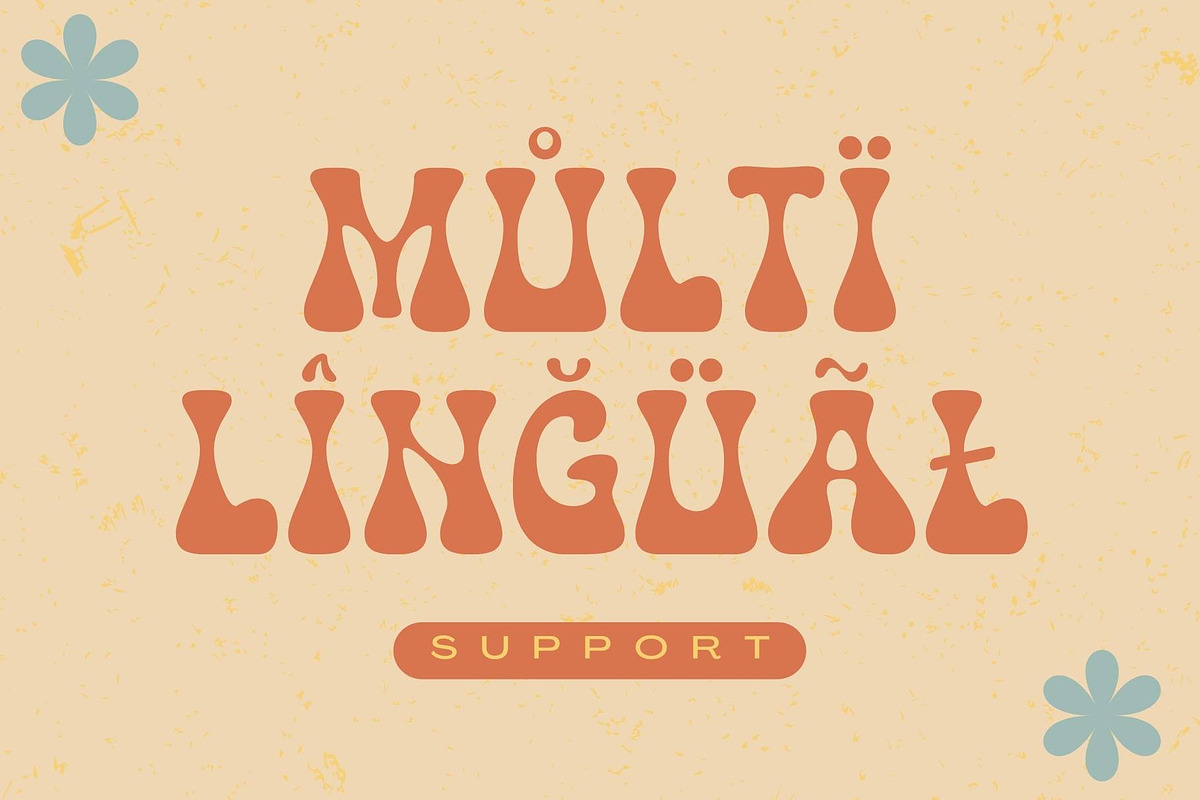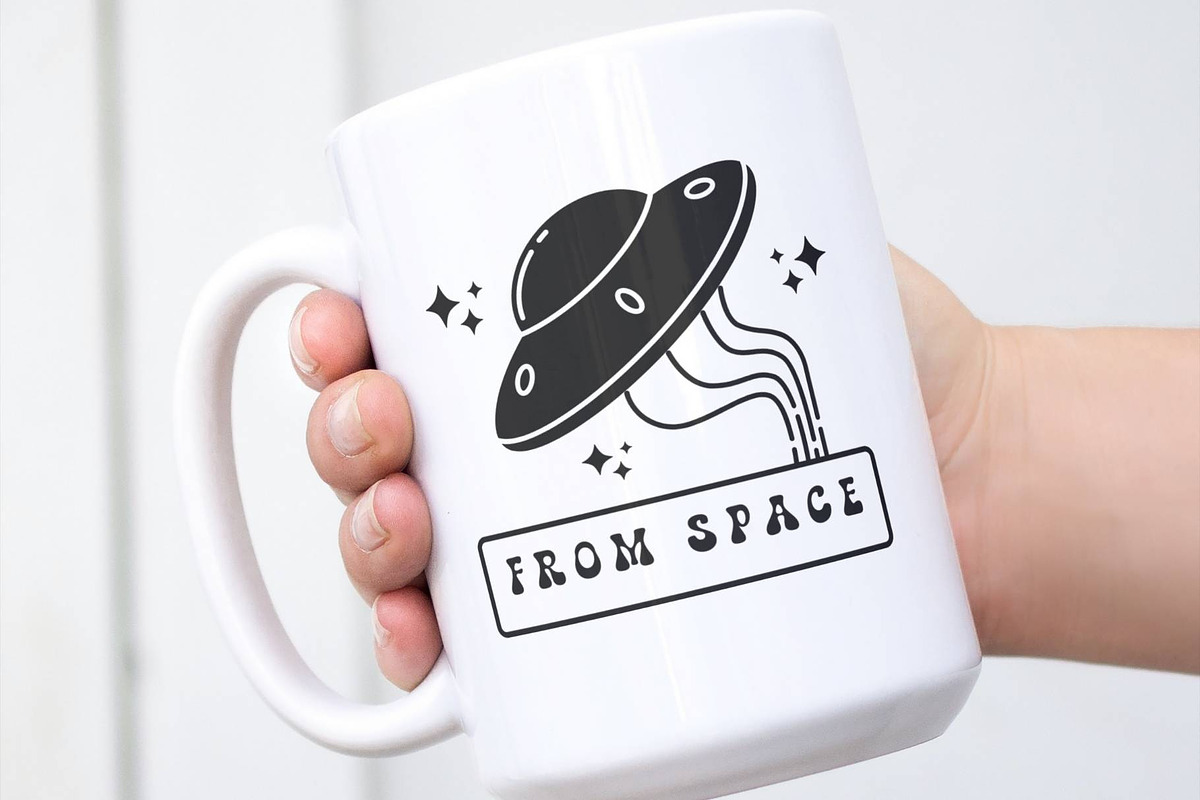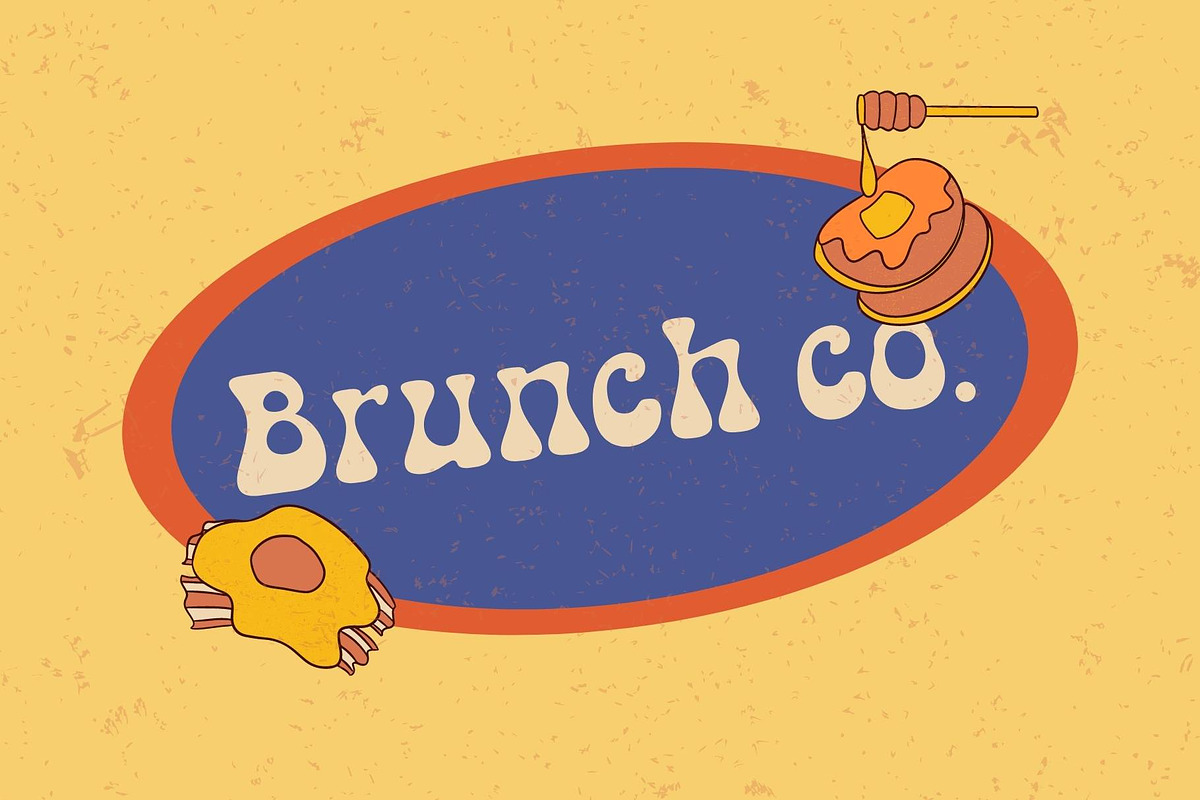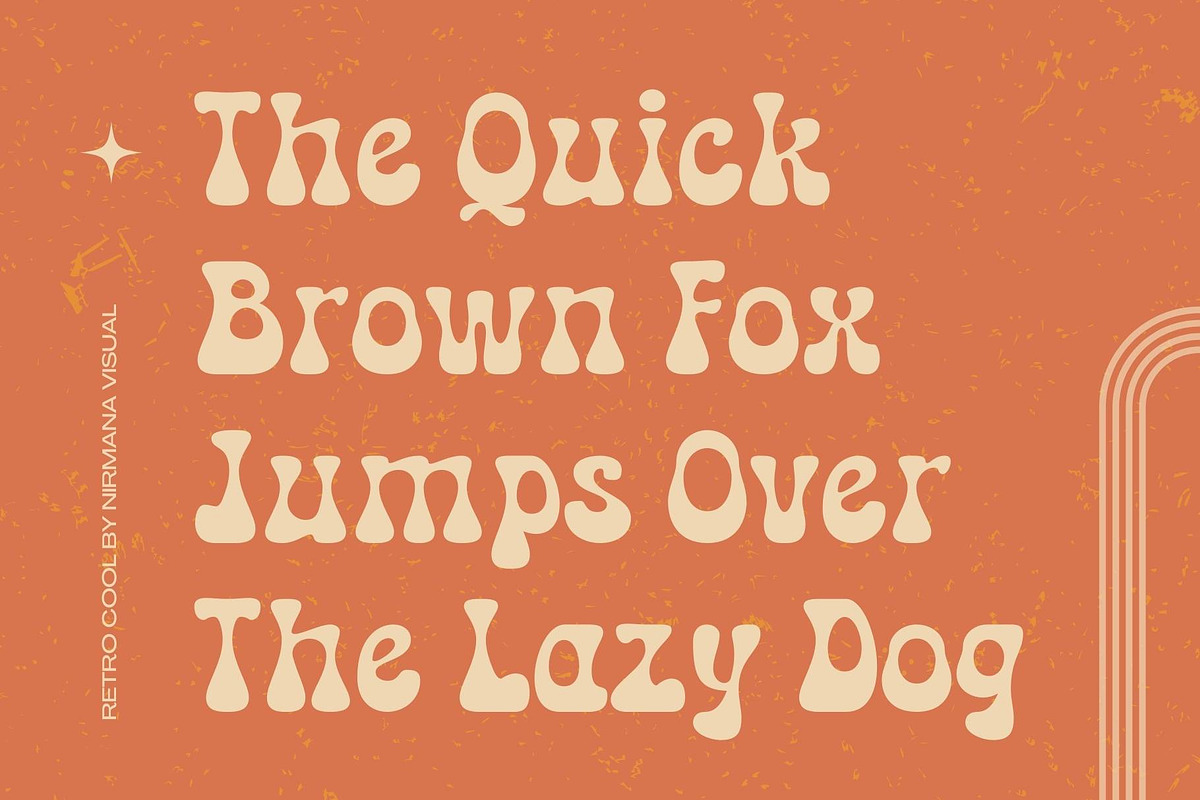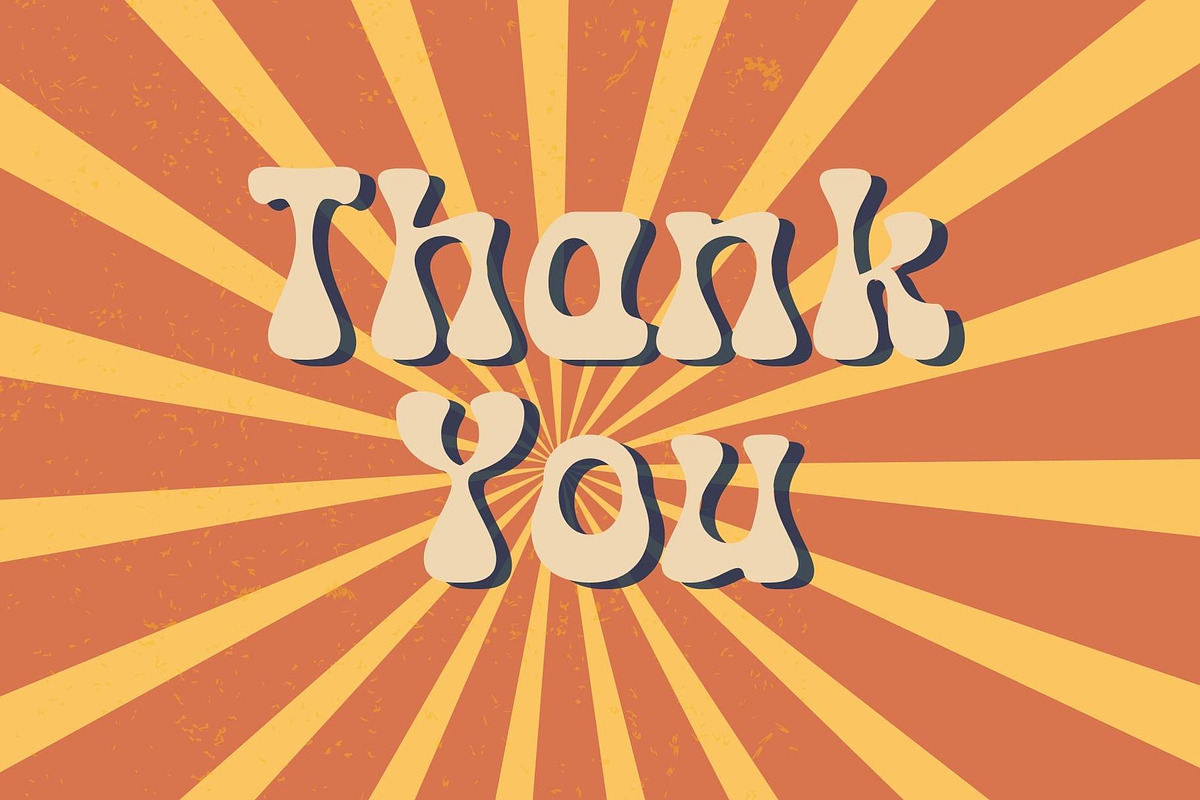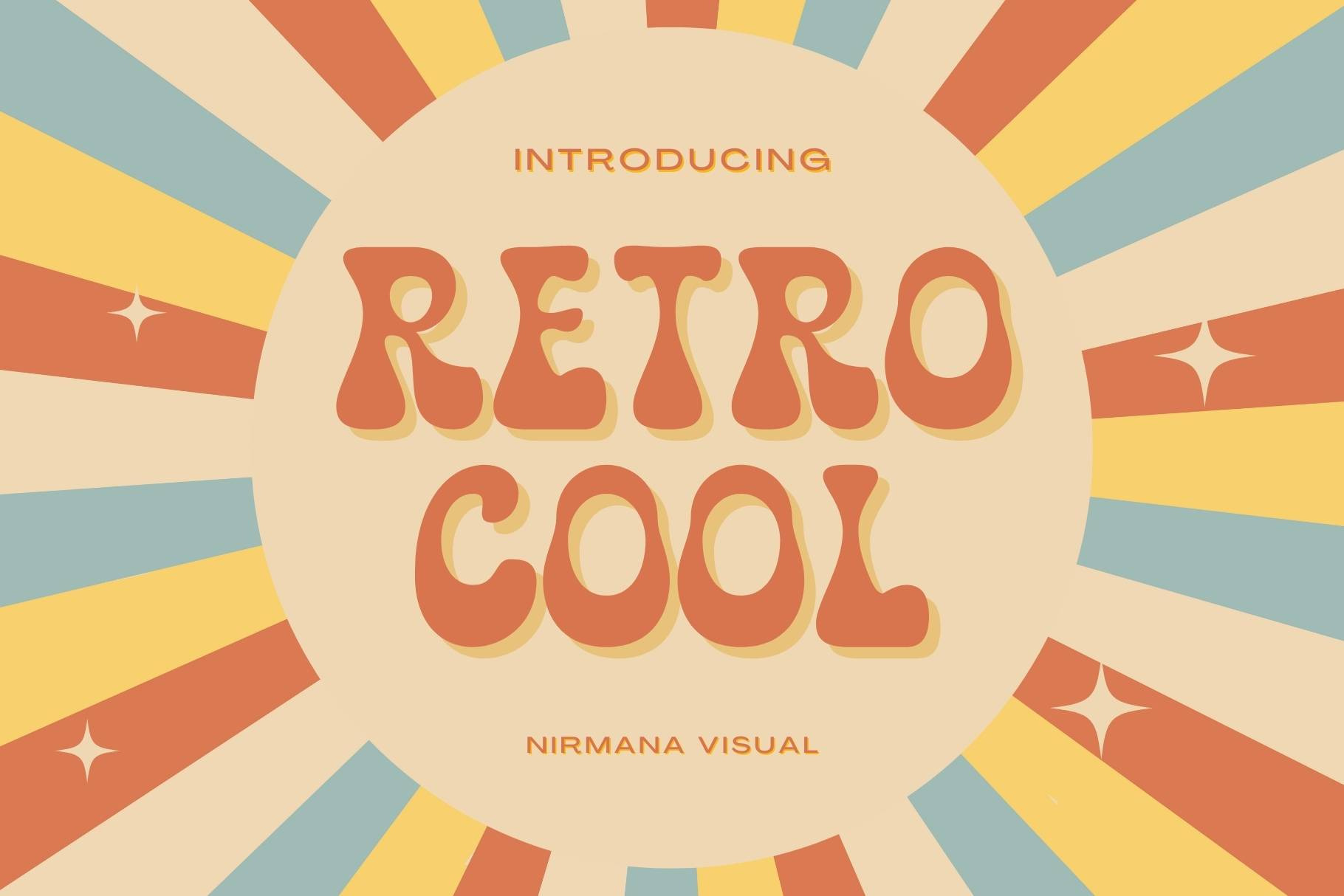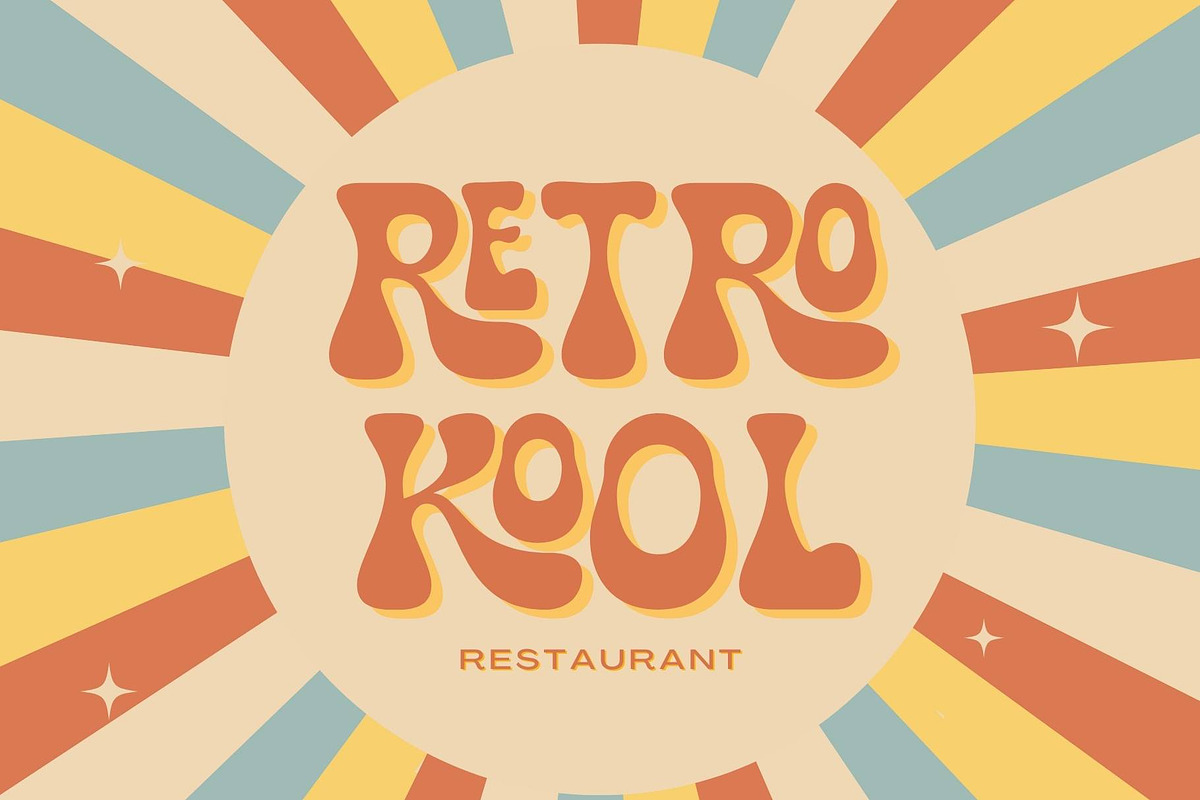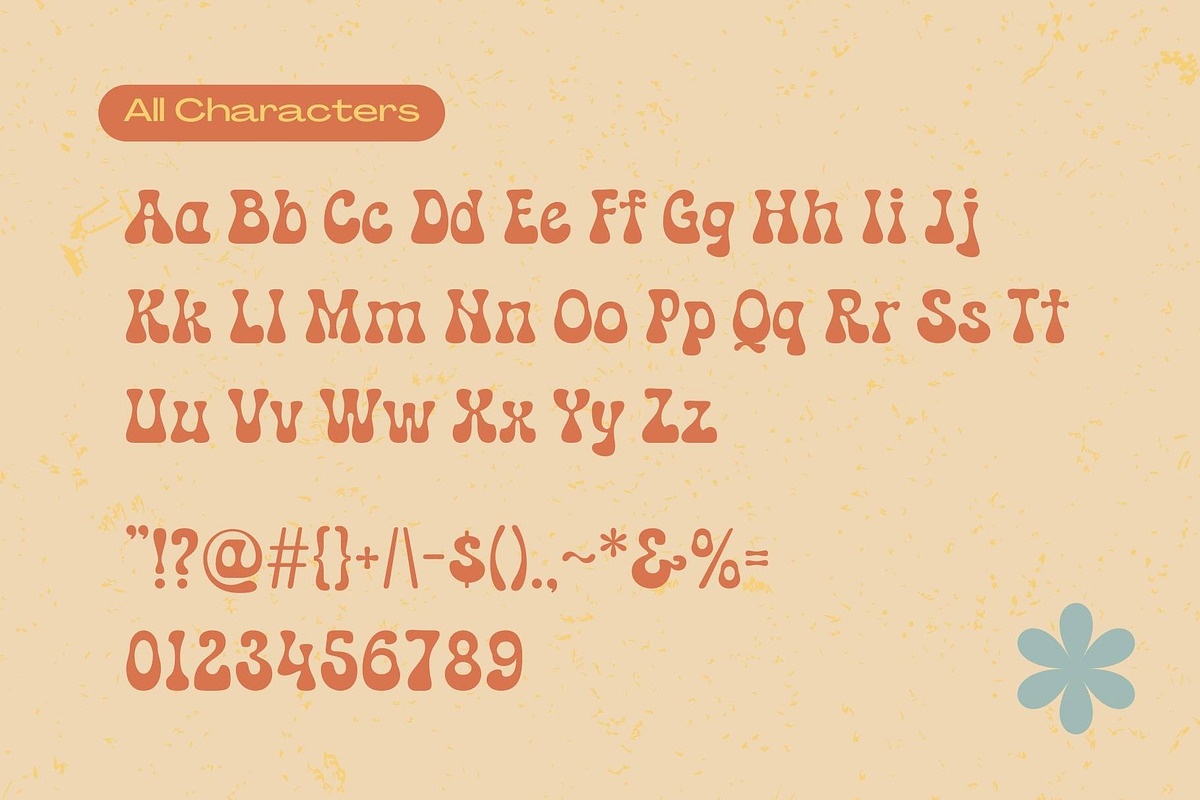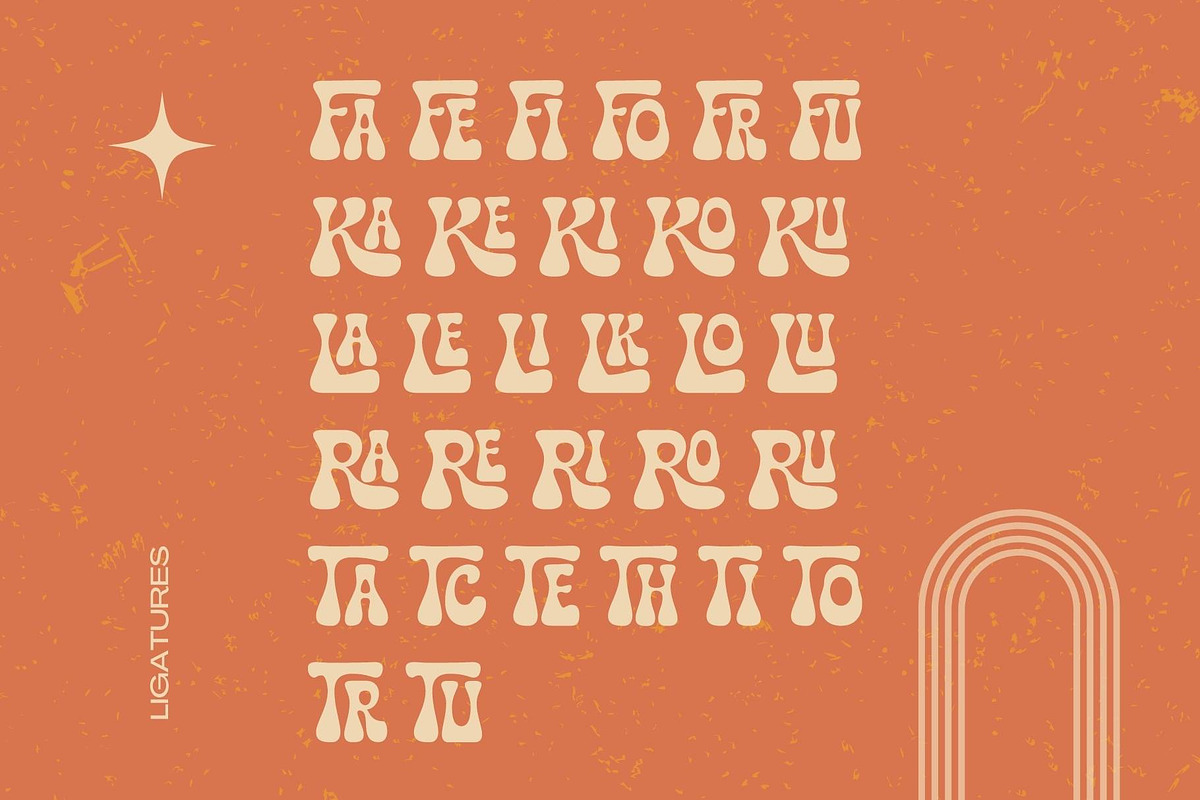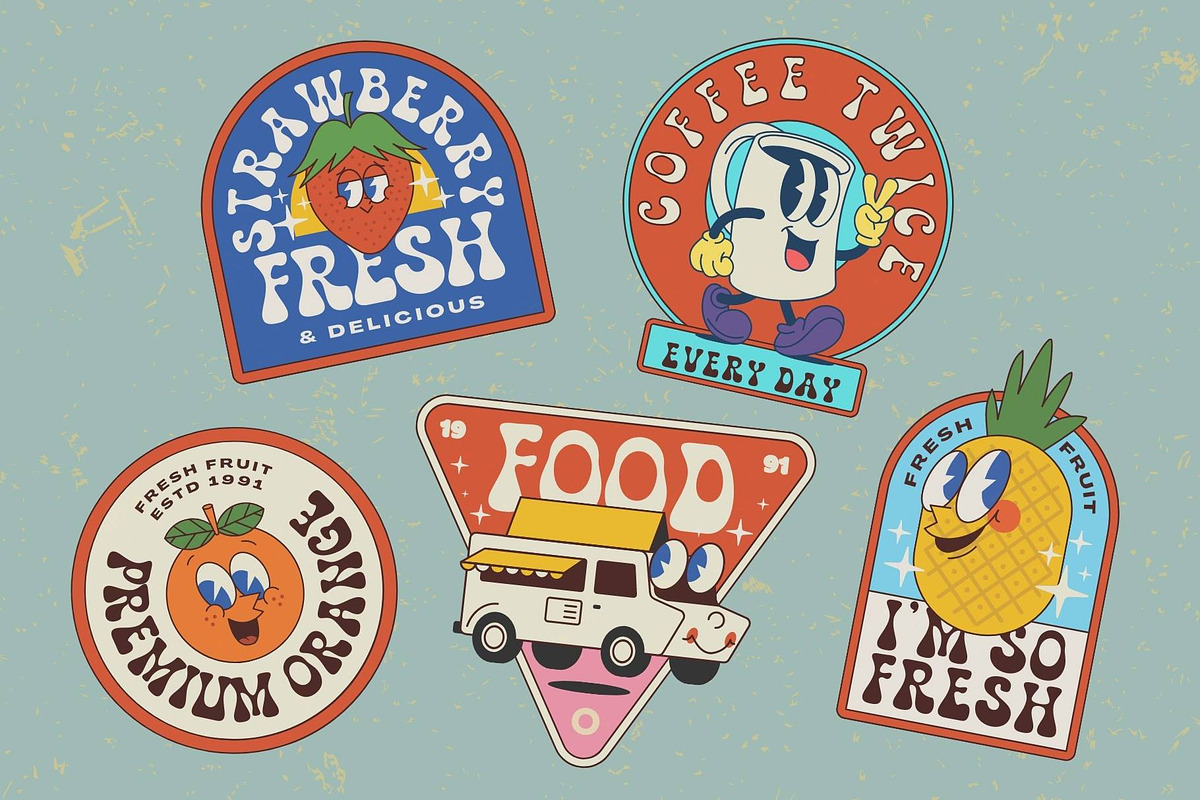
Retro Cool - Groovy font
Retro Cool , contemporary of Sans serif font, Inspired by 70s -80s Design style.
Retro Cool offers beautiful typographic harmony for a diversity of design projects, including logos & branding, social media posts, advertisements & product designs.